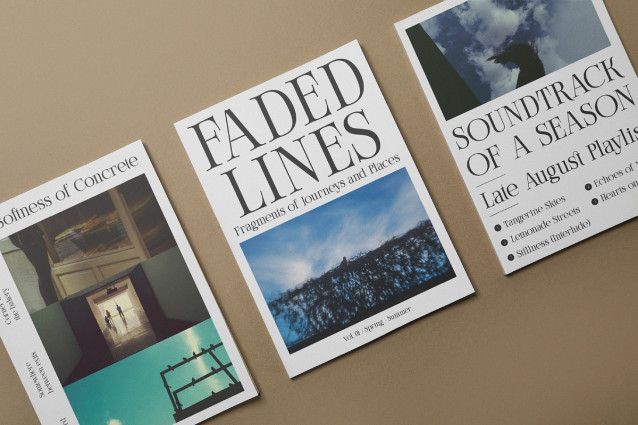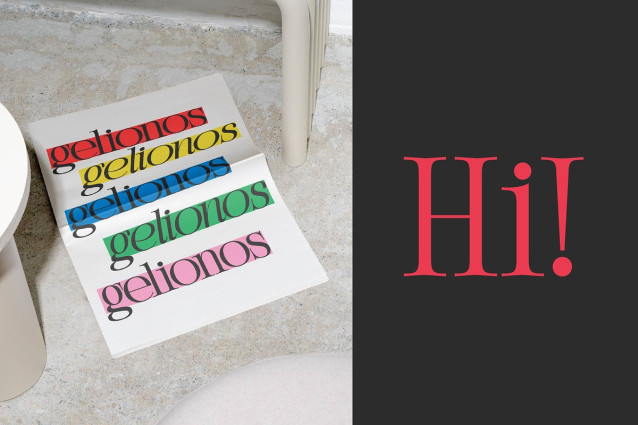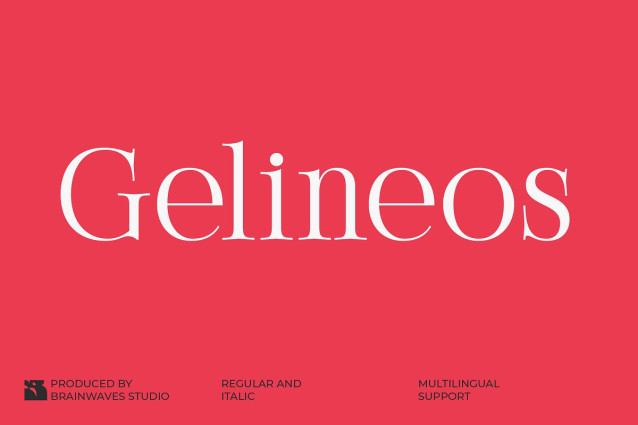
Gelineos Font
Gelineos Font, the exquisite serif display font designed to bring a touch of timeless elegance and modern sophistication to all your creative projects! With its beautiful high-contrast strokes and refined letterforms, Gelineos is your go-to choice for designs that demand attention and radiate class.
Imagine your brand logo looking effortlessly luxurious, your wedding invitations exuding pure romance, or your magazine headlines captivating readers with every glance. Gelineos offers that perfect blend of classic charm and contemporary flair, making it incredibly versatile for a wide range of uses. It’s clean, legible, and utterly captivating.